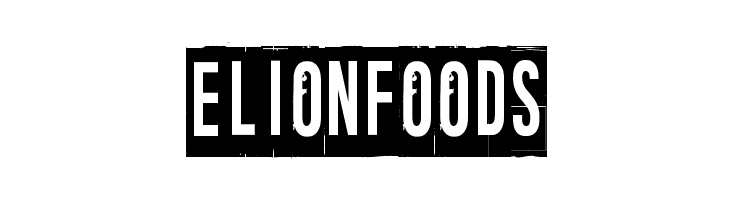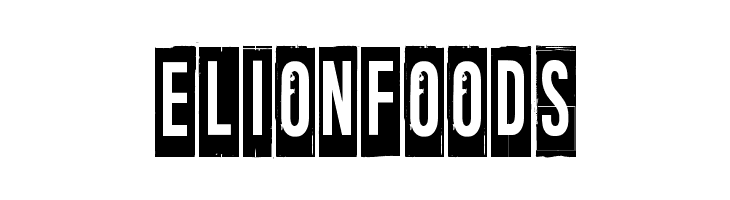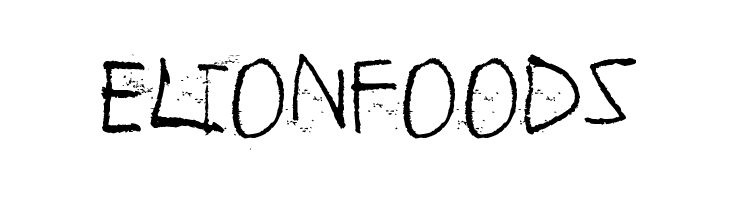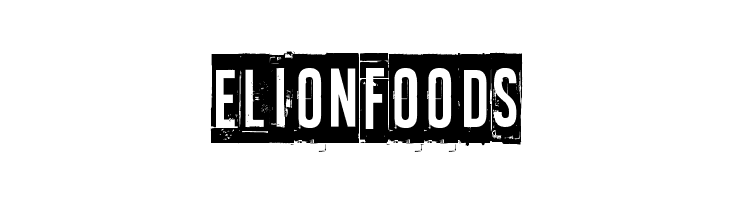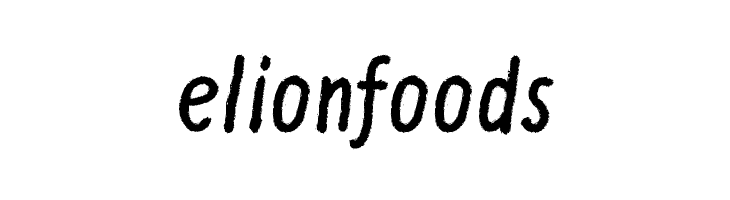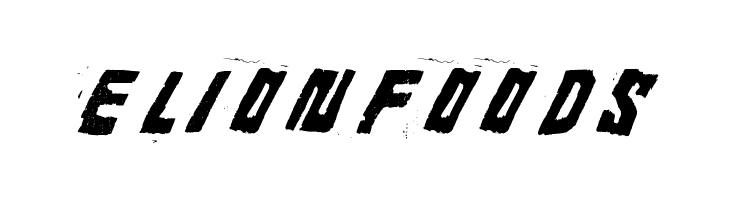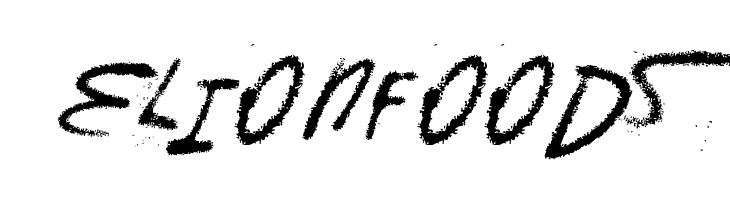
A playful, bold outline font with a three-dimensional appearance.
A bold, distressed font with a rugged, grunge aesthetic.
A bold, distressed stencil-style font with a vintage, industrial feel.
A raw, hand-drawn font with a rebellious, graffiti-like style.
A bold, distressed stencil-style font with a vintage, industrial feel.
A playful, hand-drawn font with an organic and casual style.
A bold, rounded font with a playful and robust style.
A casual, handwritten font with a dynamic and organic style.
A bold, slanted font with a rugged, dynamic style.
A bold, hand-drawn font with textured strokes and dynamic forms.